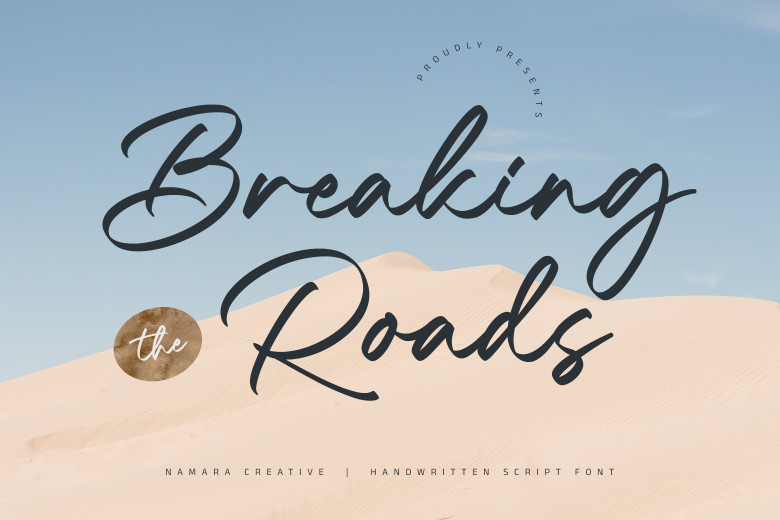
Breaking Road Font
Breaking Road features an organic look with thick and uneven strokes of varying width, perfect for creating an informal vibe on wedding invitations and greeting cards. Branding materials can also take advantage of its friendly nature to convey a friendly approachable aura for their brand.
Breaking Road Script Font